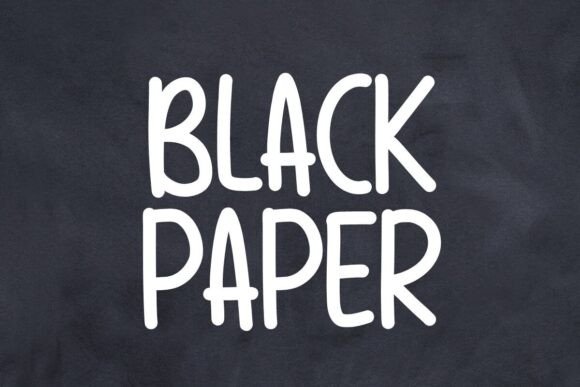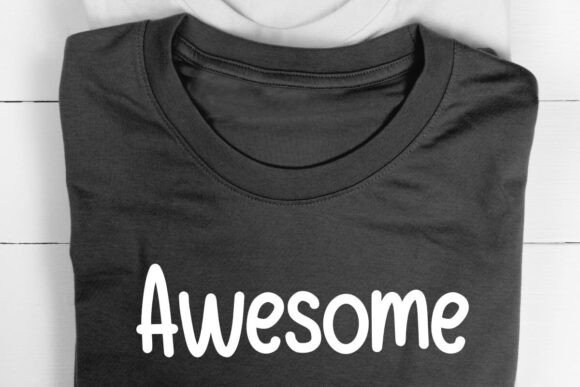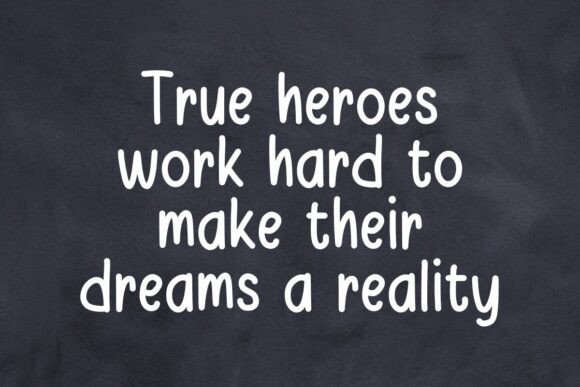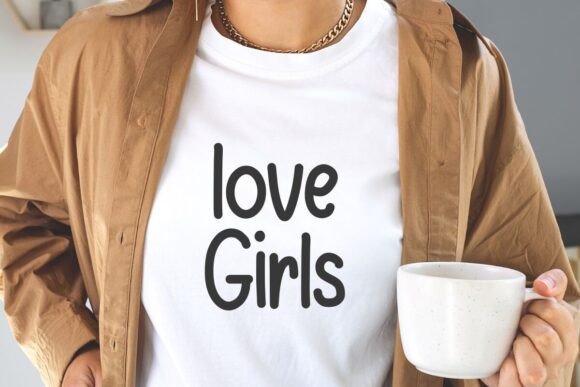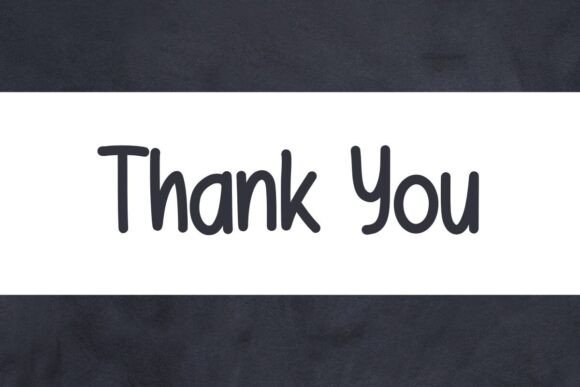
Hello Awesome Font: The Perfect Choice for Your Design Projects
Are you tired of using the same old fonts for your design projects? Look no further than the Hello Awesome font, a cute and unique sans-serif font that adds an elegant touch to any design. With its incredibly distinct and timeless style, Hello Awesome is perfect for designers and crafters looking to create spectacular designs that stand out from the crowd.
What Makes Hello Awesome Font So Special?
Hello Awesome font is a one-of-a-kind sans-serif font that boasts a unique and elegant style. Its clean lines, subtle curves, and balanced proportions make it perfect for a wide range of design projects, from logos and branding to invitations, posters, and more. Whether you’re a professional designer or a crafty DIY enthusiast, Hello Awesome font is sure to capture your heart with its charming and distinctive look.
Key Features of Hello Awesome Font
- Cute and Unique Design: Hello Awesome font features a one-of-a-kind design that’s both cute and elegant, making it perfect for designers and crafters who want to add a personal touch to their projects.
- Timeless Style: Unlike trendy fonts that quickly go out of style, Hello Awesome font boasts a timeless design that’s sure to remain relevant for years to come.
- Versatile and Adaptable: This font is highly versatile and can be used for a wide range of design projects, from digital designs to print materials.
- Elegant Touch: Hello Awesome font features an elegant touch that adds a touch of sophistication to any design.
How to Use Hello Awesome Font in Your Design Projects
Using Hello Awesome font in your design projects is easy and straightforward. Here are a few tips to get you started:
- Pair it with Other Fonts: Hello Awesome font pairs well with other fonts, so feel free to experiment with different combinations to create a unique look.
- Use it for Headings and Titles: This font is perfect for headings and titles, where its elegant and distinctive style can really shine.
- Add a Personal Touch: Use Hello Awesome font to add a personal touch to your designs, whether you’re creating a logo, invitation, or poster.
Benefits of Using Hello Awesome Font
So why choose Hello Awesome font for your design projects? Here are just a few benefits of using this amazing font:
- Stand Out from the Crowd: With its unique and distinctive style, Hello Awesome font is sure to help your designs stand out from the crowd.
- Save Time and Effort: This font is easy to use and doesn’t require a lot of effort to incorporate into your designs.
- Perfect for Designers and Crafters: Whether you’re a professional designer or a crafty DIY enthusiast, Hello Awesome font is perfect for anyone looking to create spectacular designs.
| Font Name | Hello Awesome Font |
| Author | Eystore |
FAQs About Hello Awesome Font
- What type of font is Hello Awesome?: Hello Awesome is a sans-serif font with a unique and elegant style.